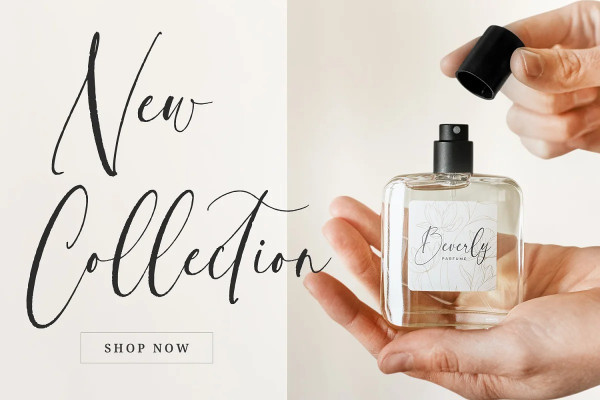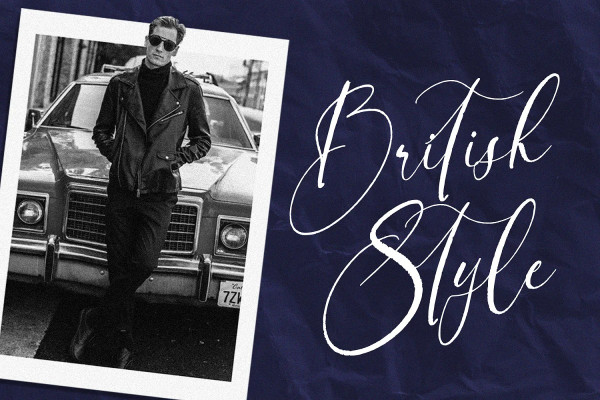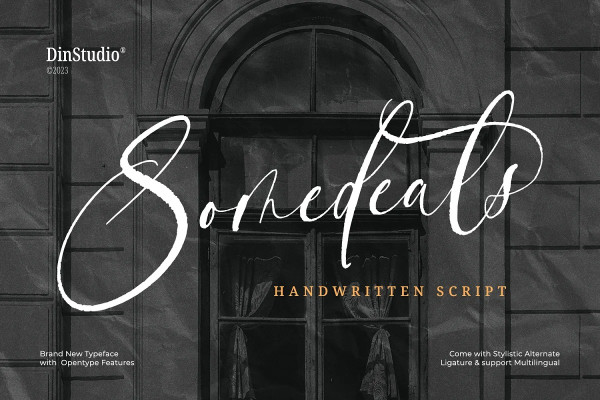
Somedeals Script Font
Somedeals Script Font, is a captivating script font that beautifully captures the essence of cursive handwriting with a touch of elegance. This typeface exudes a sense of grace and sophistication, making it perfect for projects that require a refined and stylish look. With its smooth and fluid letterforms, this font offers a natural and seamless writing style, evoking the charm of handwritten notes.
The high letter contrast in this font adds a dynamic and eye-catching quality, enhancing the overall visual appeal and making each word stand out. The cursive handwriting style of this font ensures that each letter flows gracefully into the next, creating a harmonious and aesthetically pleasing rhythm. This script font exudes a sense of personality and elegance, adding a distinctive flair to your typography. For the best legibility you can use this font in the bigger text sizes.